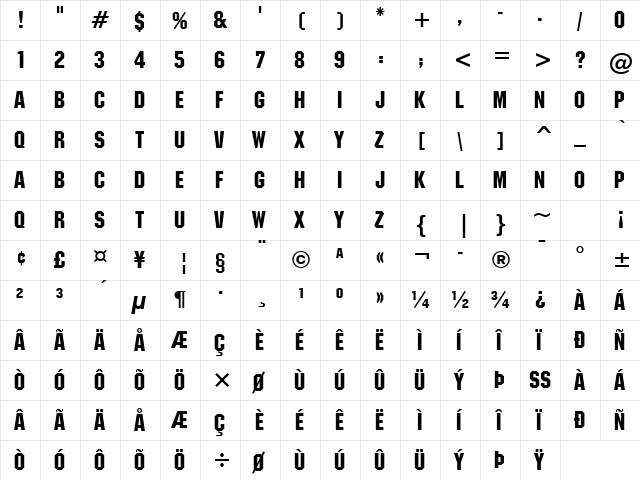
Machine BT Regular Font Preview
Machine BT Regular
Design Context for Machine BT Typeface
Machine BT is a composed and adaptable typeface that performs quietly and consistently across a wide range of design contexts.